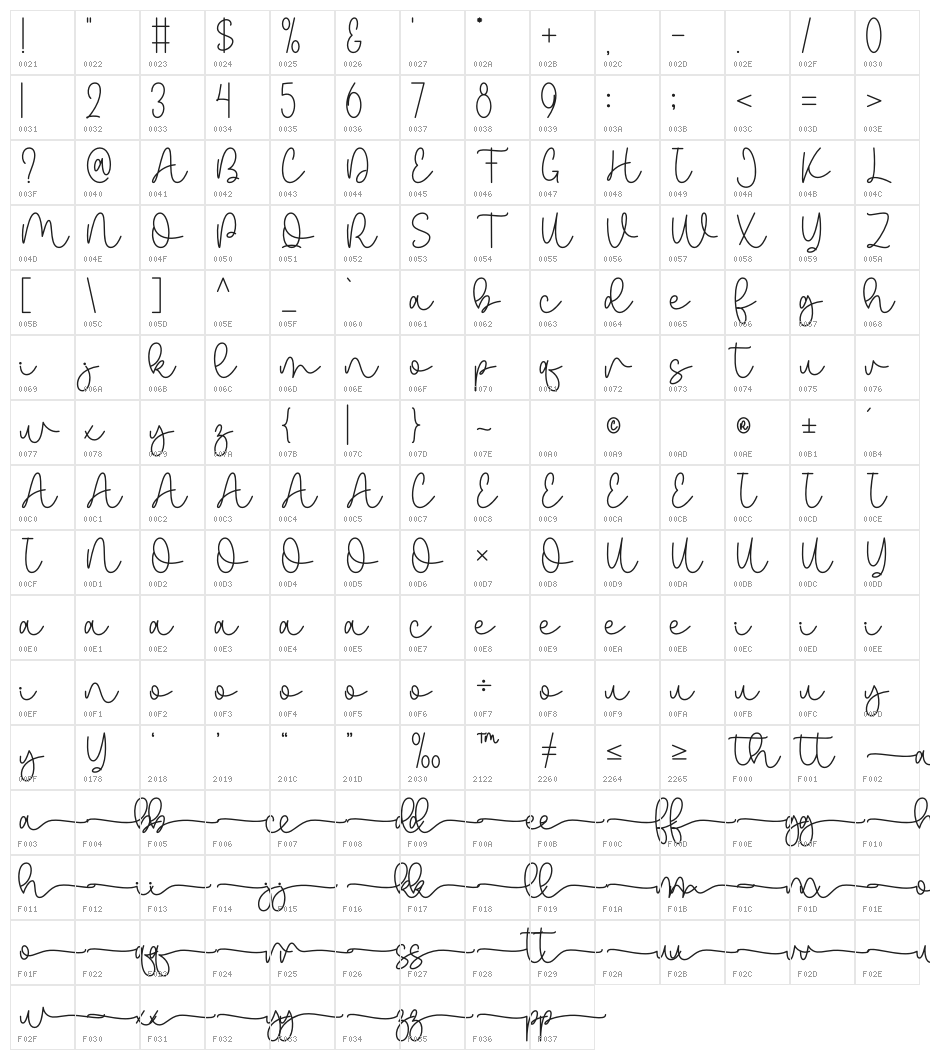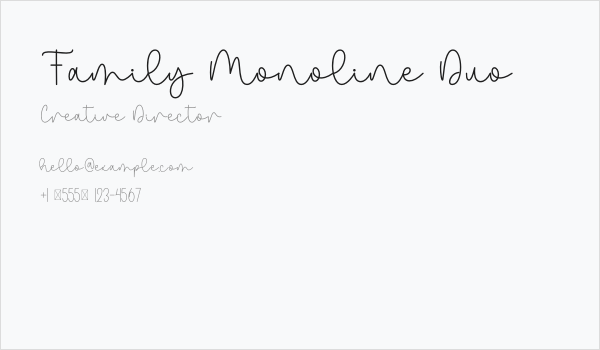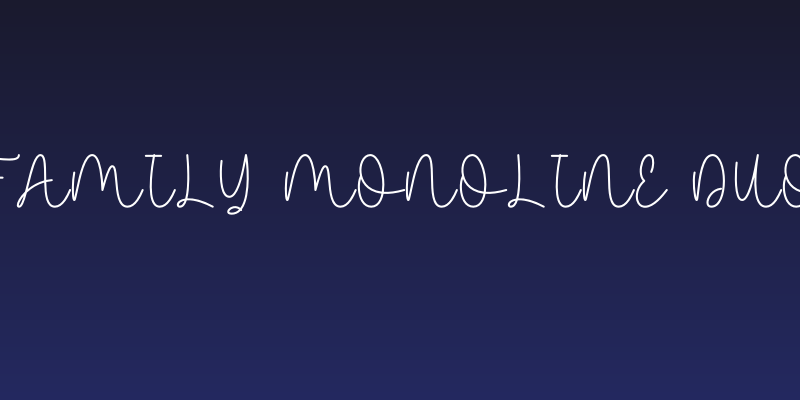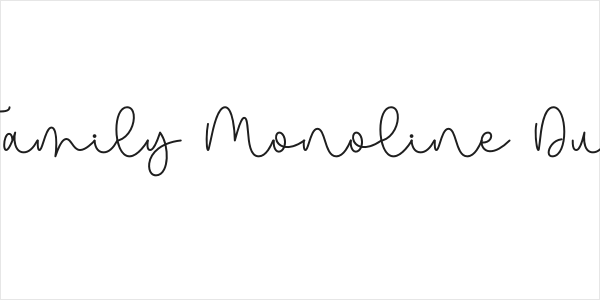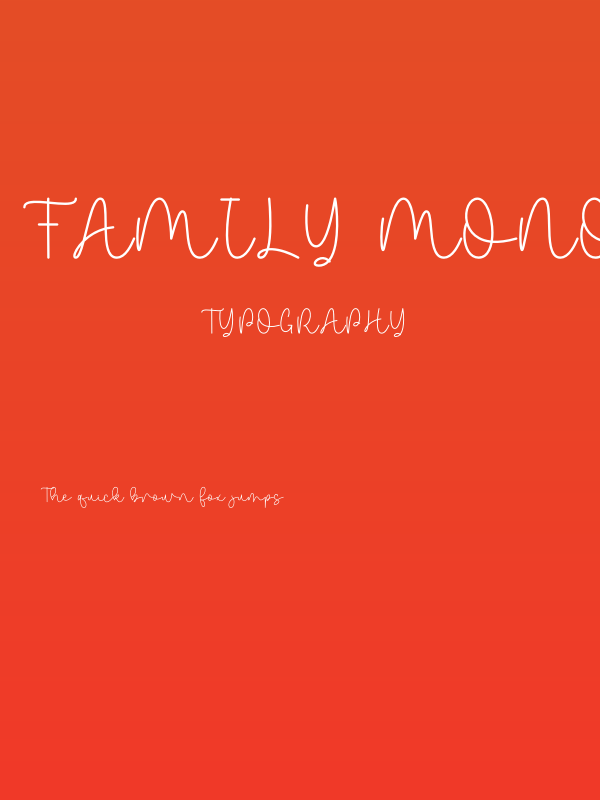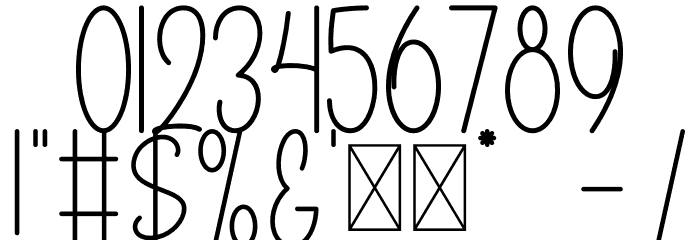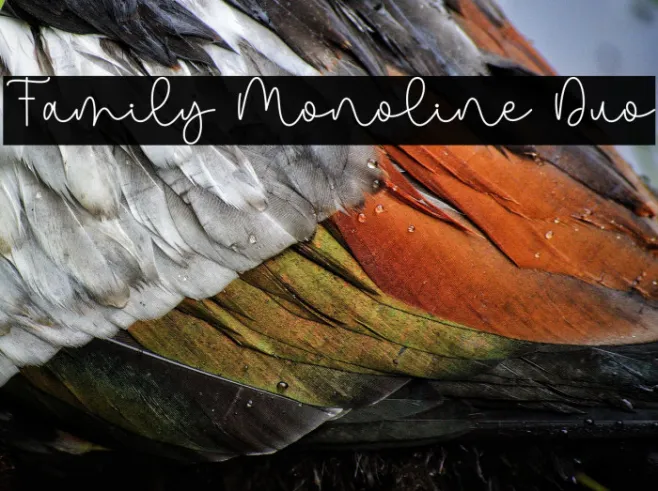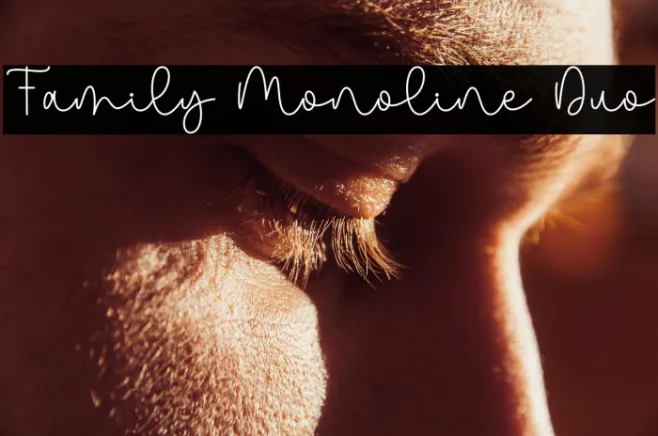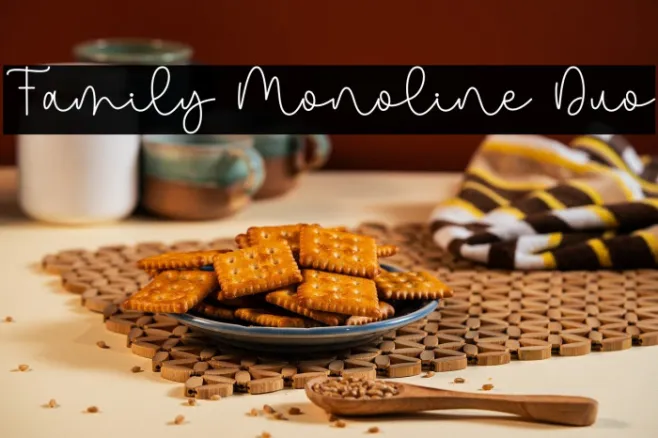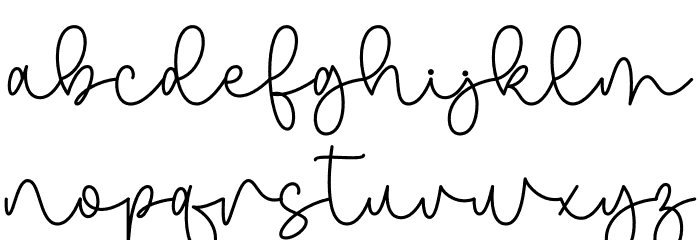
Family Monoline Duo Font
Family Monoline Duo Description
This font features a charming and playful monoline style, characterized by its consistent stroke width throughout each character. The uppercase letters exhibit a whimsical, handwritten quality with smooth curves and rounded edges, while the lowercase letters maintain a similar playful aesthetic with slightly more fluidity and connection between characters. The numerals are clear and legible, maintaining the monoline consistency, and the special characters complement the overall style with their simple yet elegant design. This font exudes a friendly and approachable vibe, making it ideal for projects that require a personal touch.
| Proposed Projects | Ideal for greeting cards, invitations, personal branding, and playful logos. |